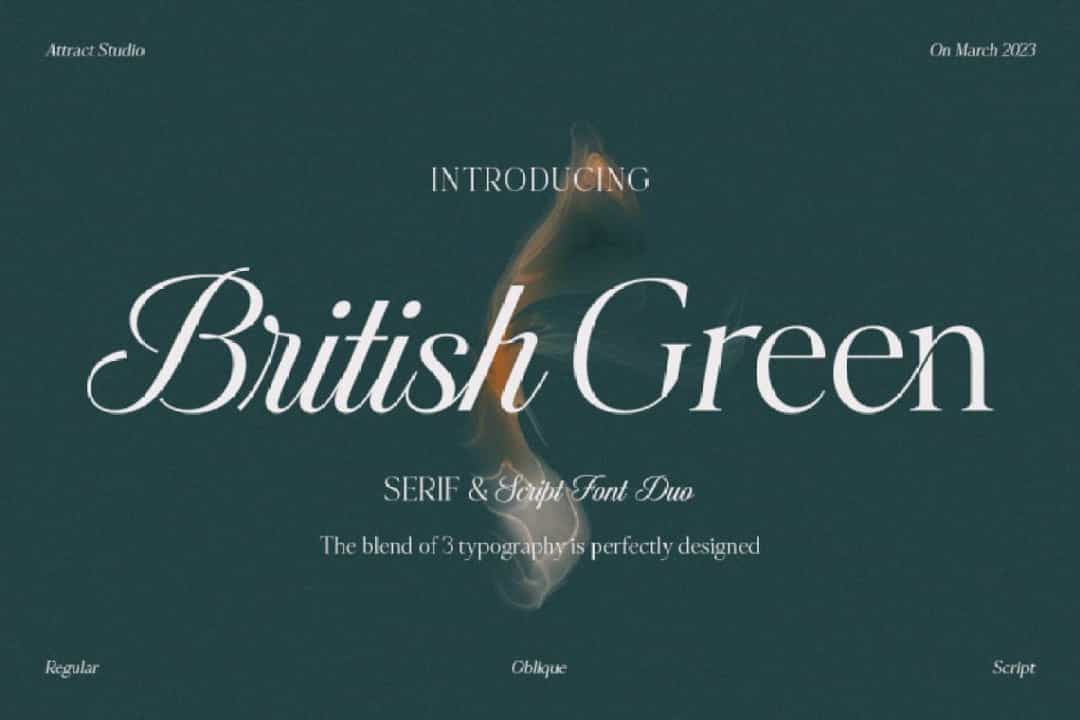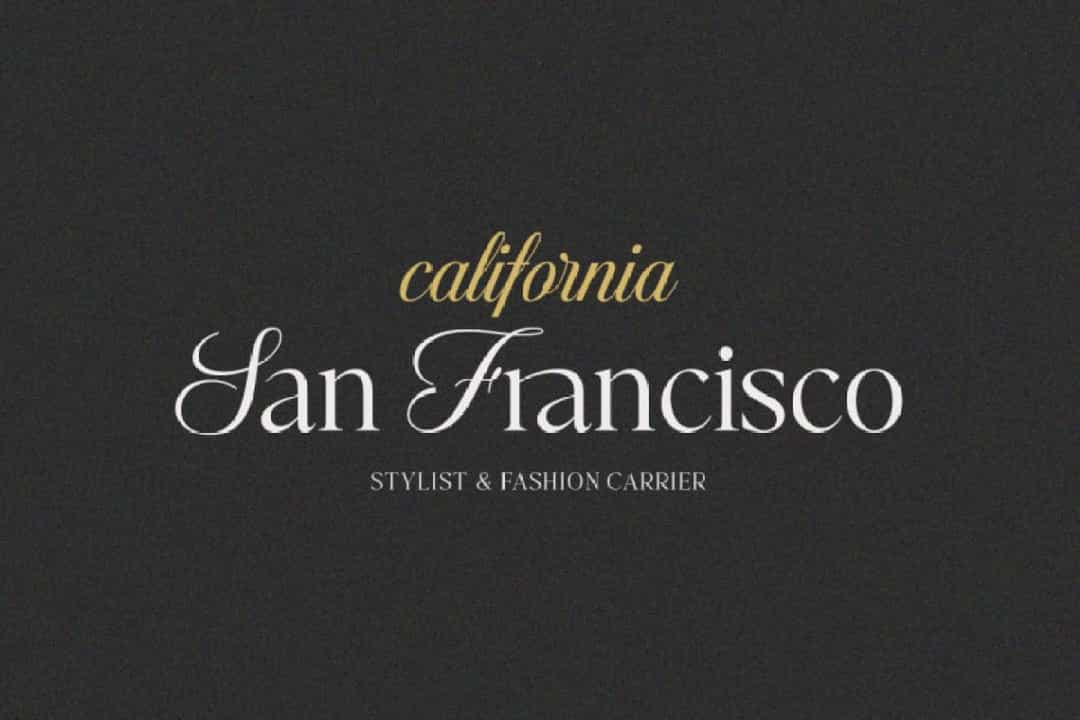
British Green is a font duo consisting of a script font and a serif font that stylize attractively when placed side by side. Which comes with upper and lower case characters in each individual font. British Green a versatile set of fonts that can be used & suited across a variety of design projects.